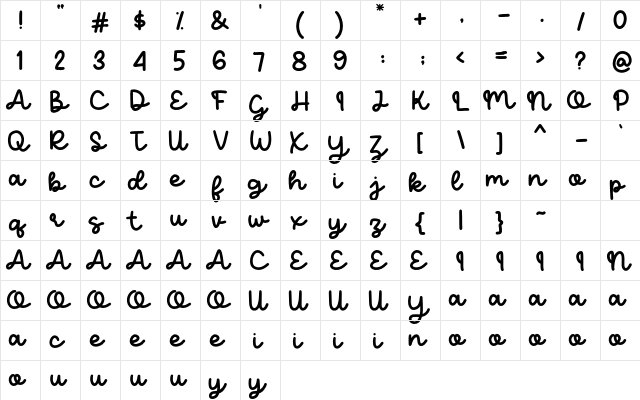
Candela Regular Font Preview
Candela Regular
Candela Regular Font Details
| Designer | Iis Syifauarrahmah & Ahmad Syarif Afandi |
Design Context for Candela Typeface
Candela is a composed and adaptable typeface that performs quietly and consistently across a wide range of design contexts.